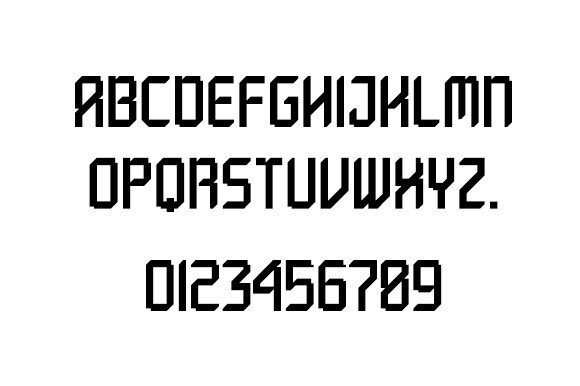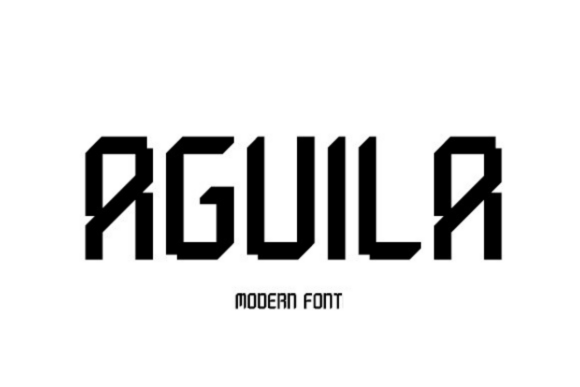
I still remember the frustration of working on a project, hours spent perfecting every detail, only to be held back by one thing: the font. It was a client request – a modern, elegant look that conveyed authority and sophistication. I scoured the internet, tried countless fonts, but none seemed quite right. That was until I stumbled upon Águila Font.
Águila Font: A Contemporary Classic
Águila is a typography with a contemporary and minimalist design, characterized by its straight and precise endings. The lines are clean and geometric, offering a modern and elegant aesthetic. Águila typography balances strength and clear visuals well, making it ideal for use in titles, logos, and corporate communications. Its simplicity makes it easy to read, while conveying a feeling of sophistication and authority, evoking a combination of agility and power, as its name suggests.
- ✨ **Clean and geometric design**: Águila’s straight and precise endings give it a modern and elegant look.
- ✅ **Easy to read**: Despite its simplicity, Águila is surprisingly easy to read, even in smaller sizes.
- 💼 **Versatile**: Águila works well in titles, logos, and corporate communications, making it a great addition to any designer’s toolkit.
- 👍 **Sophisticated and authoritative**: Águila exudes a sense of sophistication and authority, perfect for brands looking to make a statement.
- 🤔 **Limited emotional range**: Águila’s clean design can make it less suitable for projects requiring a more playful or emotional tone.
- ⚠️ **May not work well with decorative elements**: Águila’s simplicity can be overpowered by overly decorative elements, so use them sparingly.
The Designer Behind Águila
Águila was designed by a team of typographers who sought to create a font that embodied the qualities of agility and power. Inspired by the sleek lines of modern architecture and the precision of geometric shapes, Águila was crafted to be a versatile and elegant solution for designers.
Q: What is Águila Font?
Águila Font is a contemporary and minimalist typography with a clean and geometric design.
Q: What is Águila best used for?
Águila is ideal for use in titles, logos, corporate communications, and any project requiring a modern and elegant look.
Q: Can I use Águila for body text?
While Águila is easy to read, its simplicity may make it less suitable for extended body text. Consider using a font with more character variation for longer texts.